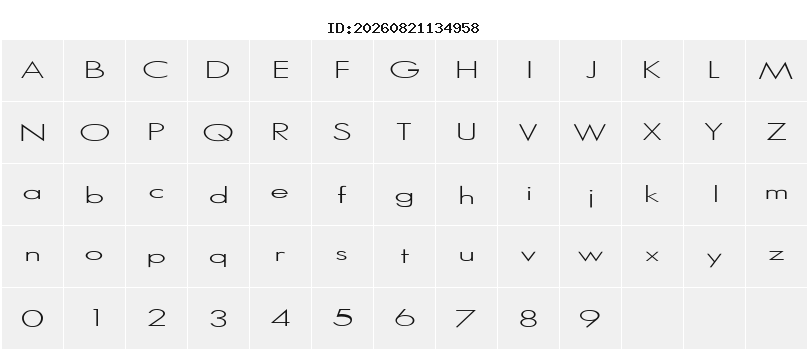
SeasSerif   Preview
About SeasSerif .ttf
SeasSerif .ttf is a modern, elegant sans-serif font designed for ultimate readability and visual harmony. Perfect for branding, headlines, web design, and print materials.